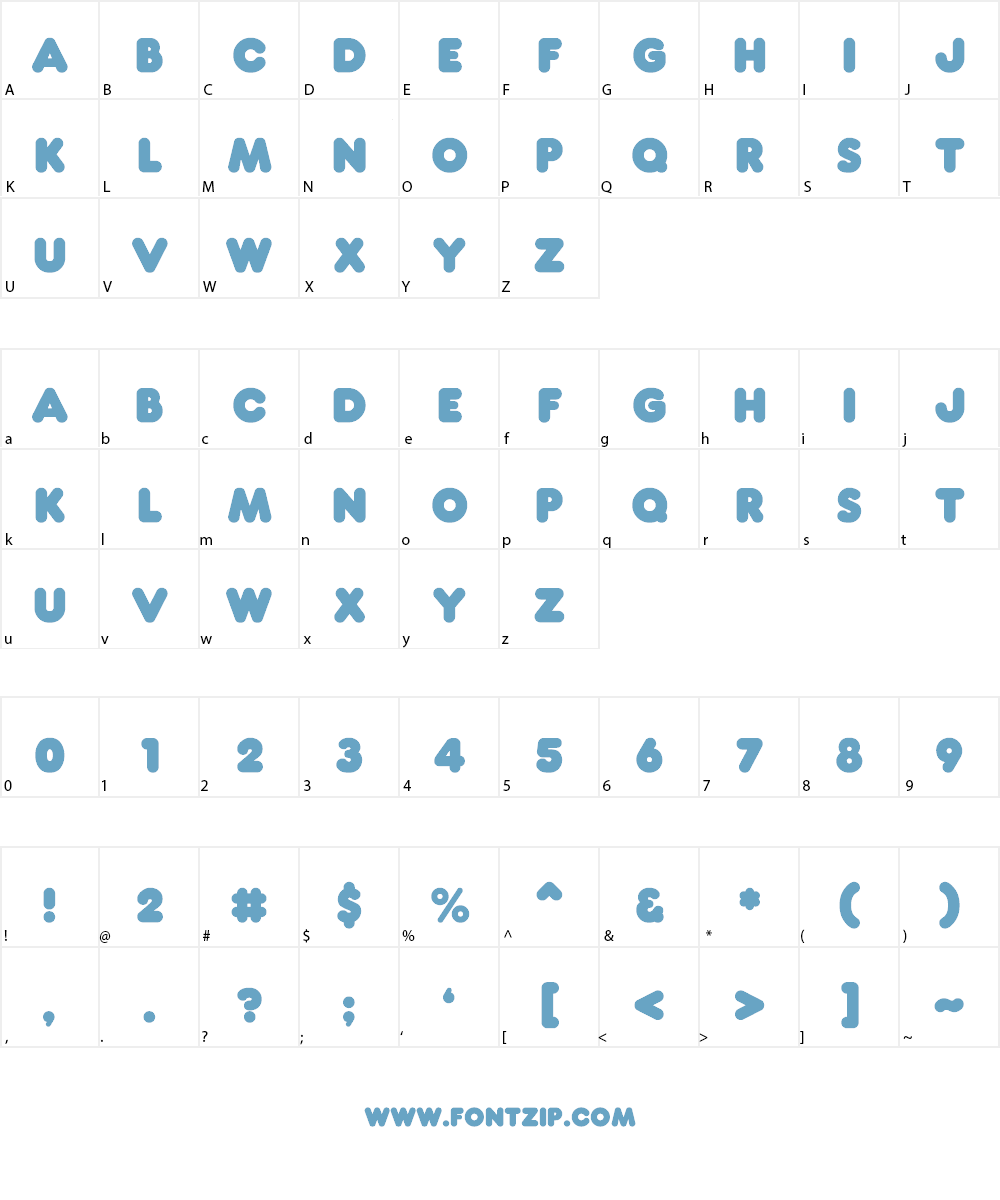
You may see the same old design in Dunkin' products, Kuu Kuu Harajuku, True and the Rainbow Kingdom, bumpers in Nick Jr., most 80's shows, and lots of others.
You can use it for birthday parties, 80's-type parties, box office supplies, recipe books, toy catalogues, and a number of other things.
Like the above picture said, party like it’s 1981, and mind your F's and X's.
'Frankfurter' was originally designed by Nick Belshaw, Alan Meeks, and Bob Newman.